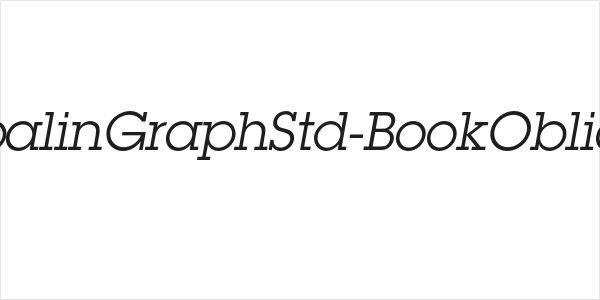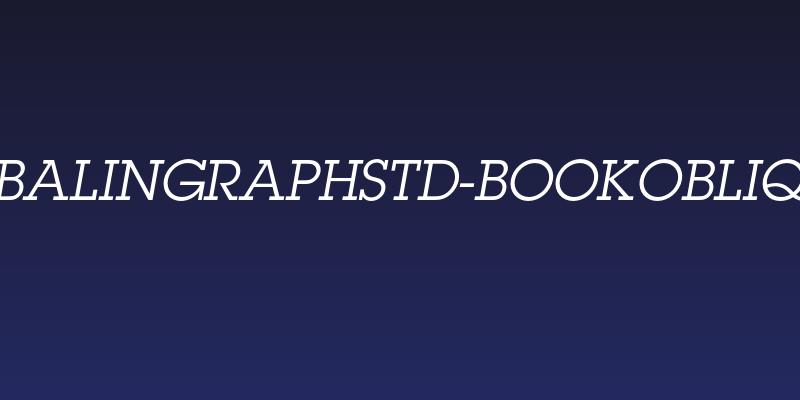
LubalinGraphStd-BookOblique Font
LubalinGraphStd-BookOblique Description
This font features a distinct oblique style, combining a modern geometric structure with a classic serif touch. The characters are slightly slanted, giving a dynamic and elegant appearance. The uppercase letters are bold and commanding, while the lowercase letters maintain a smooth and consistent flow. The numerals are clear and well-proportioned, ensuring readability. Special characters are designed with precision, complementing the overall aesthetic. The font's balance between modernity and tradition makes it versatile for various design needs.
| Proposed Projects | Ideal for branding, editorial design, advertising, and any project requiring a sophisticated yet modern look. |